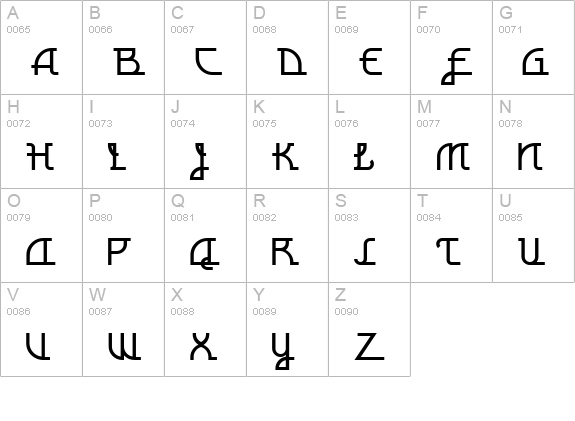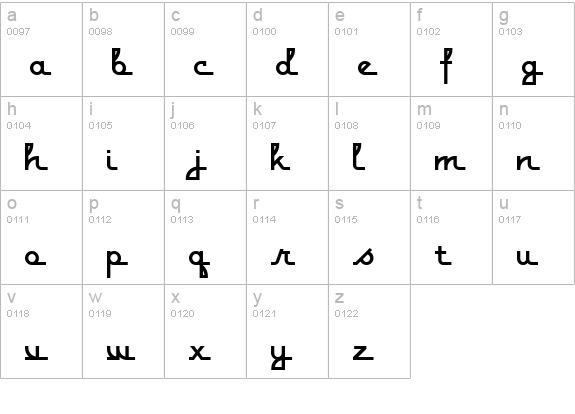
MontereyPopsicle Font Details
MontereyPopsicle font is a whimsical and playful typeface that is sure to add a touch of fun to any design project. With its smooth lines and rounded edges, this font exudes a sense of cheerfulness and creativity. Whether you are creating invitations, posters, or branding materials, MontereyPopsicle will bring a lighthearted charm to your work. Best of all, MontereyPopsicle is completely free to download at FontsMarket.com. This means that you can easily access this delightful font and use it in your projects without any cost. So why wait? Add a pop of personality to your designs with MontereyPopsicle font today!